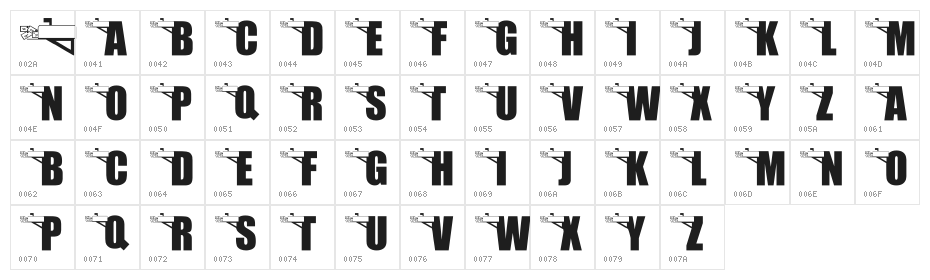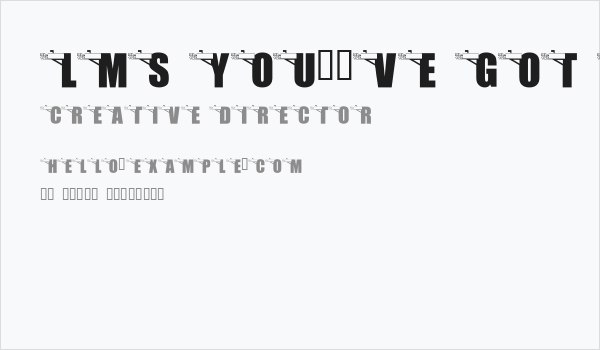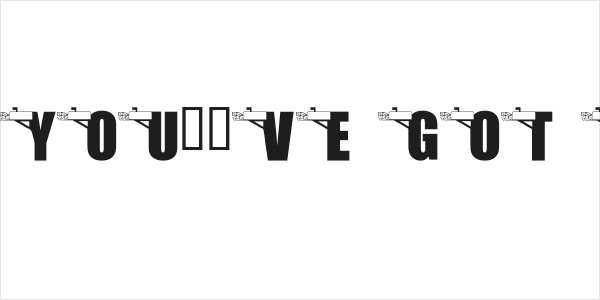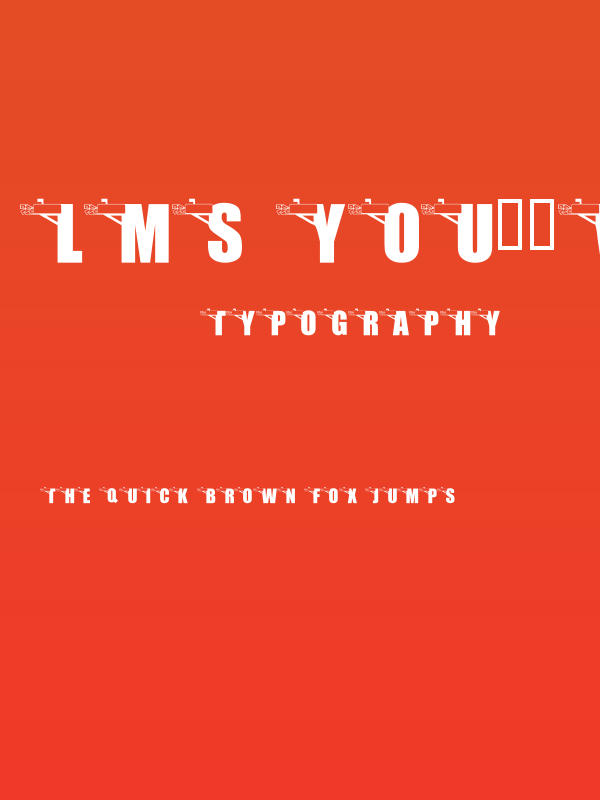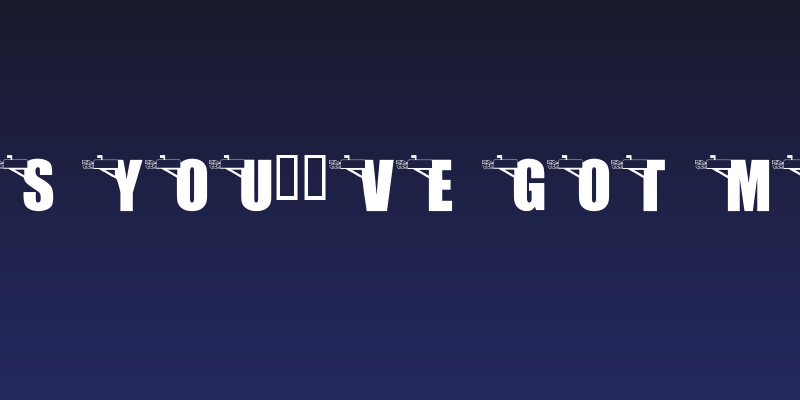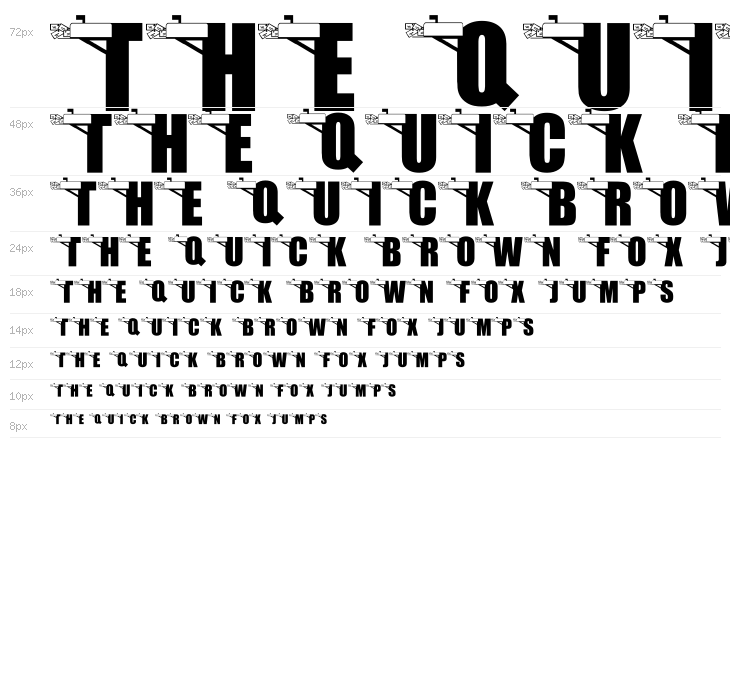
LMS You've Got Mail Font
LMS You've Got Mail Description
This font features a playful and decorative style, with each letter appearing as if it is hanging from a clothesline. The uppercase letters are bold and have a strong presence, making them suitable for attention-grabbing designs. The unique design element of the clothesline adds a whimsical touch, making it ideal for projects that require a fun and informal tone. The characters are evenly spaced, ensuring readability despite the decorative elements. This font is perfect for creative projects that aim to convey a sense of fun and lightheartedness.
Proposed ProjectsIdeal for greeting cards, children's book covers, playful posters, and party invitations.